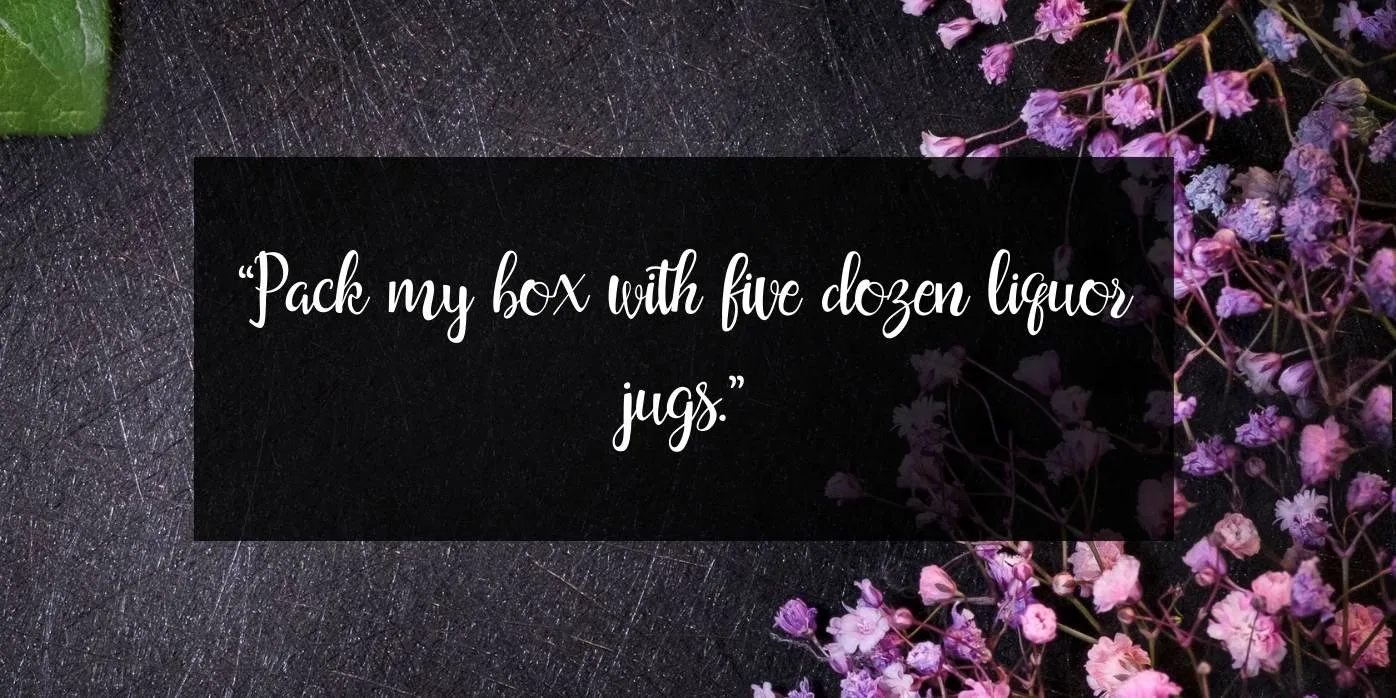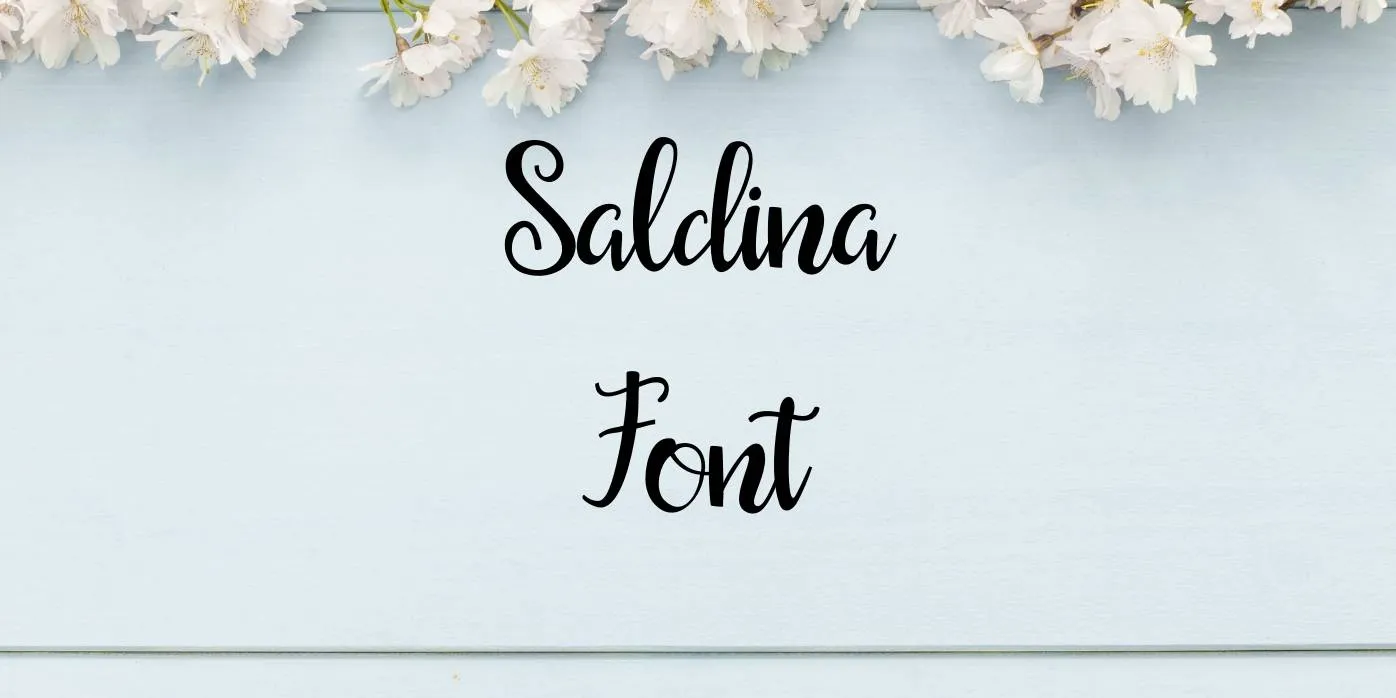
Saldina Font
In this post, we are consulting on the very famous typeface that is known by the name Saldina Font. This tremendous typeface was developed and published by Vanroem Studio. This classy typeface belongs to the Calligraphy typeface family. This classy typeface consists of 250 stylish and unique Glyphs.
This attractive typeface is best for different interesting projects. This cute typeface has various keen and classic features. These features make it perfect for different designs. This cute font family supports different languages.
This stylish typeface is best for CSS. This marvelous typeface has plenty of unique textures. This is the main reason for its popularity and uniqueness all over the world. This awesome typeface also consists of 1024 units/cm.